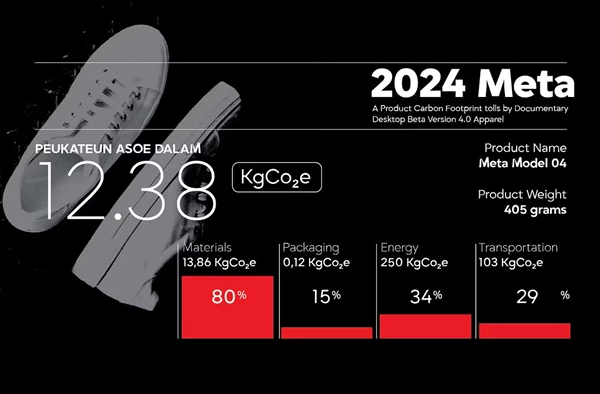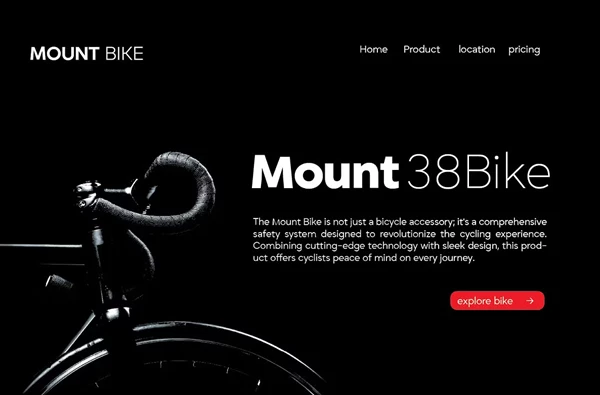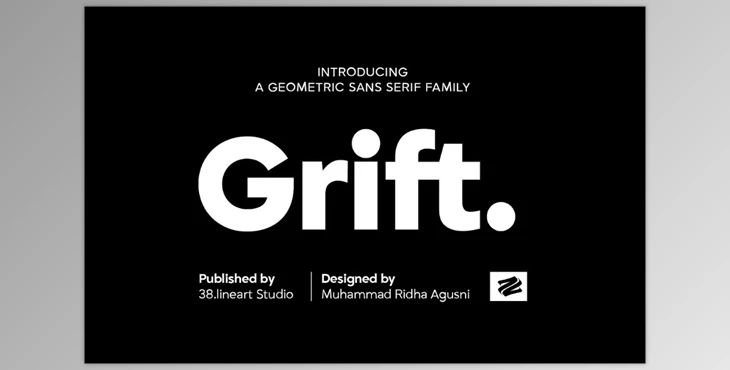
Grift - Geometric Typeface:
The Grift Geometric Sans Serif typeface represents contemporary design thinking, offering designers a complete type system of 9 weights. This variety allows for effortless adaptability to multiple different projects.
Its sleek lines and symmetrical proportions bestow a refined appearance ideal for branding, editorial, and digital design.